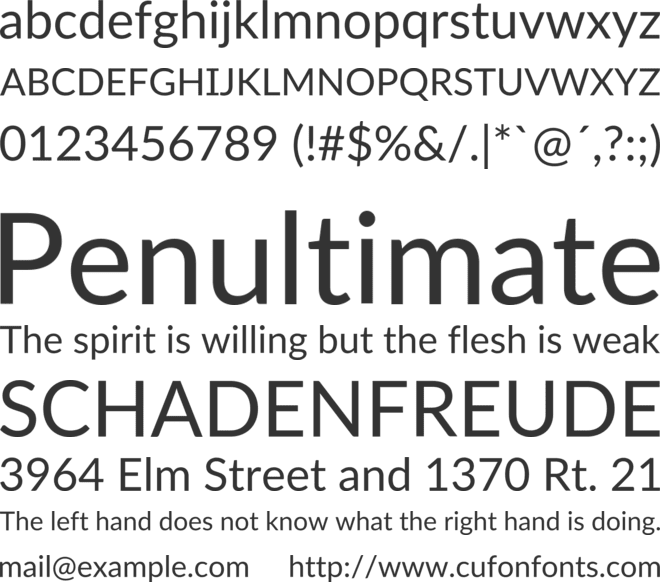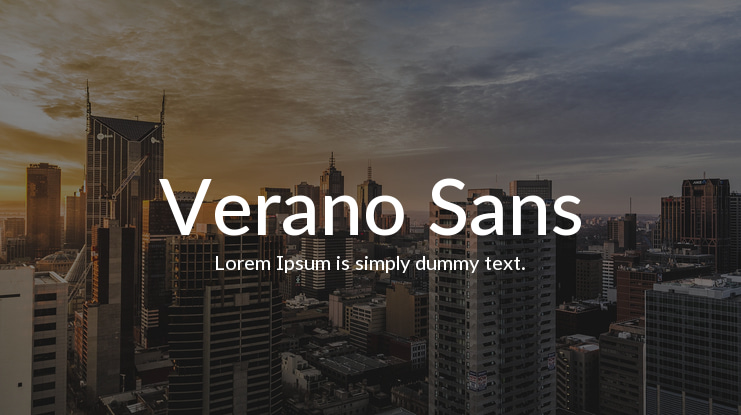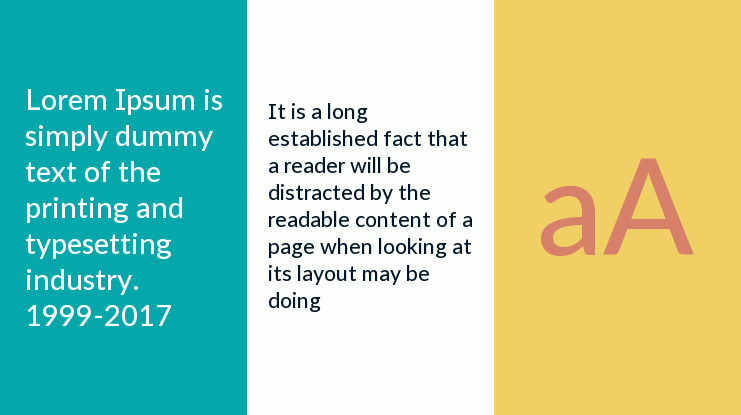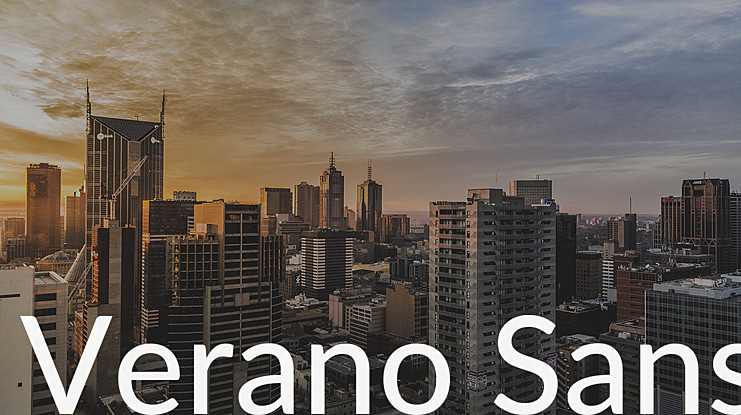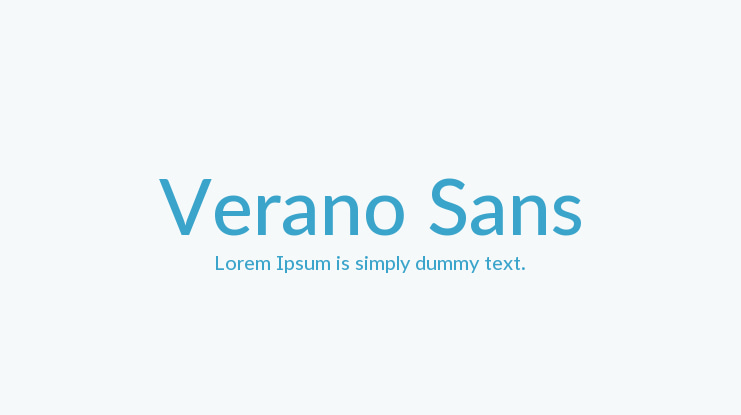
Verano Sans Font Family
Lukasz Dziedzic with Adam Twardoch and Botio Nikoltchev
Verano Sans is forked from the latest Lato fonts. The changes are a serifed 'I' in all weights and a single-storey 'g' in italics.